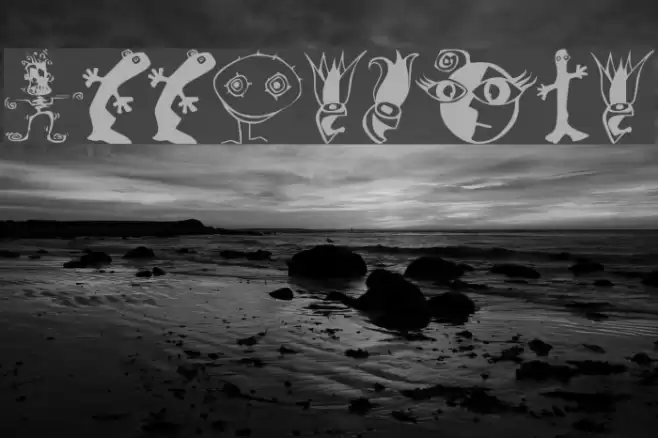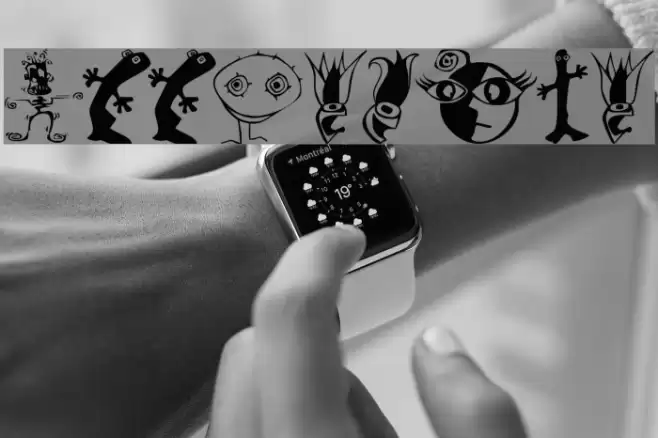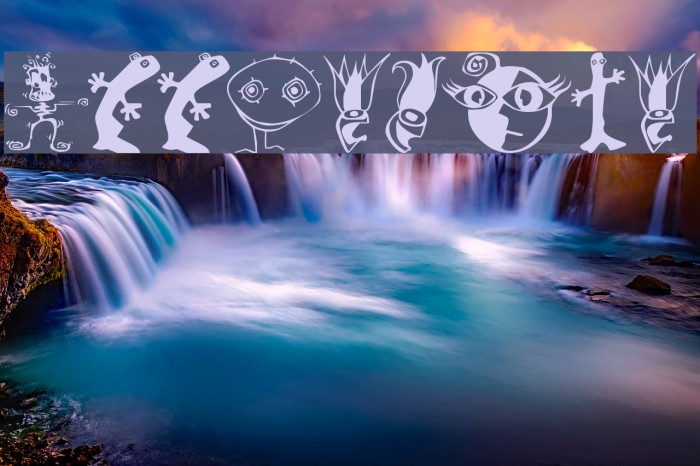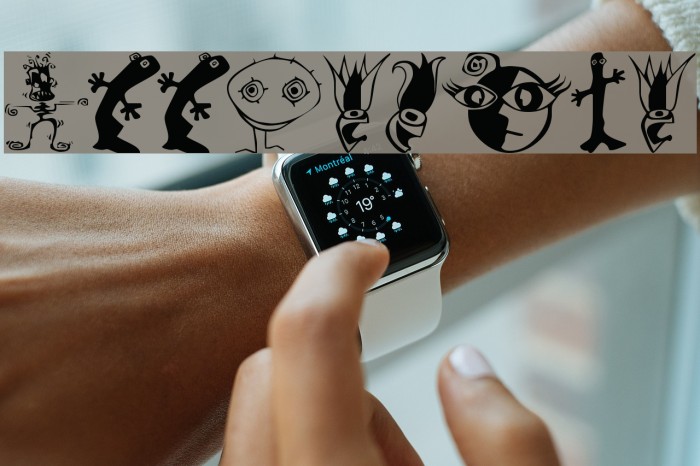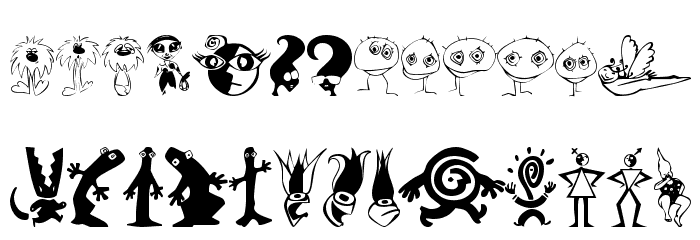
Kooksters Font
Kooksters Description
This is a whimsical and playful decorative font featuring a series of unique, cartoonish characters and figures. Each character is creatively designed with exaggerated features and quirky expressions, making them stand out as individual pieces of art. The style is highly illustrative, with a hand-drawn feel that adds to its charm. The characters vary in shape and size, providing a dynamic and lively appearance. This font is perfect for projects that require a fun and imaginative touch, such as children's books, playful branding, or creative posters.
A whimsical decorative font with cartoonish, hand-drawn characters from Dingbats fonts.
- Proposed Projects: Ideal for children's books, playful branding, creative posters, and any project needing a fun, imaginative touch.
- Use Case: Logos, Posters, Creative projects